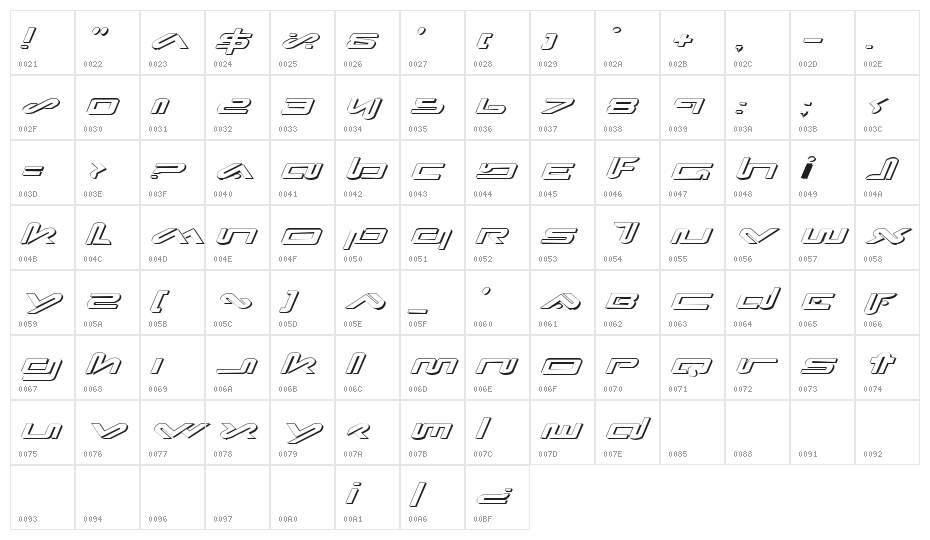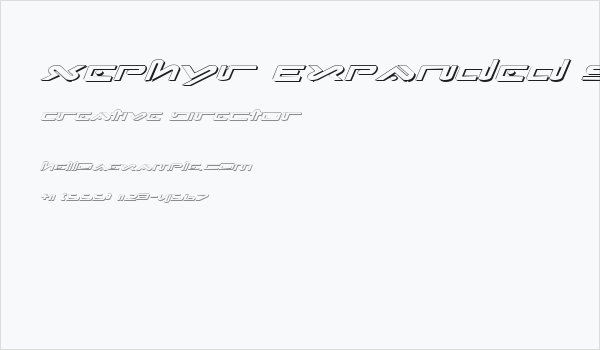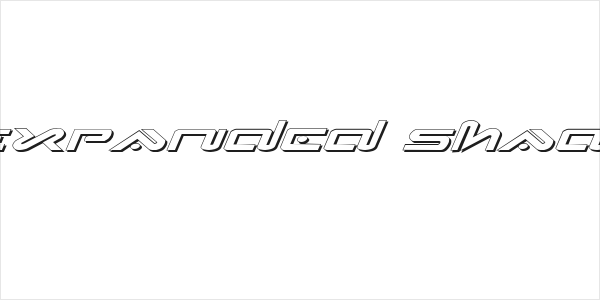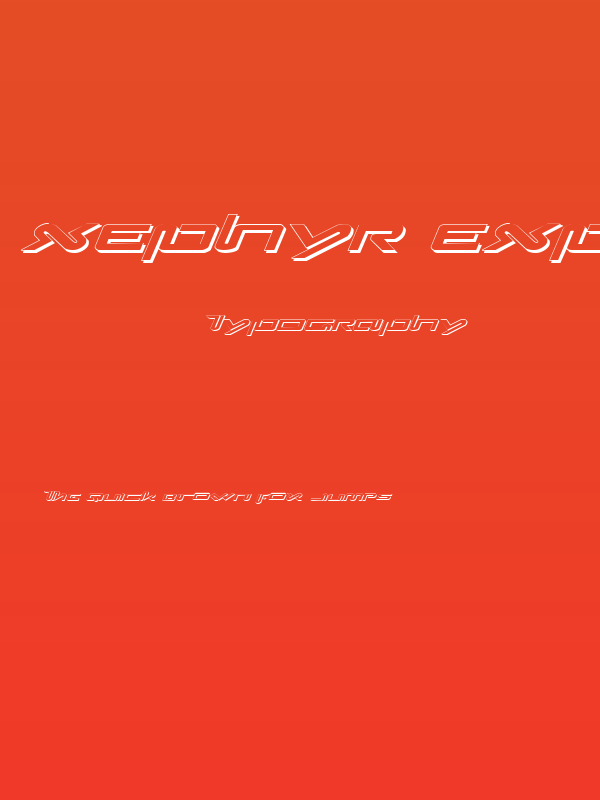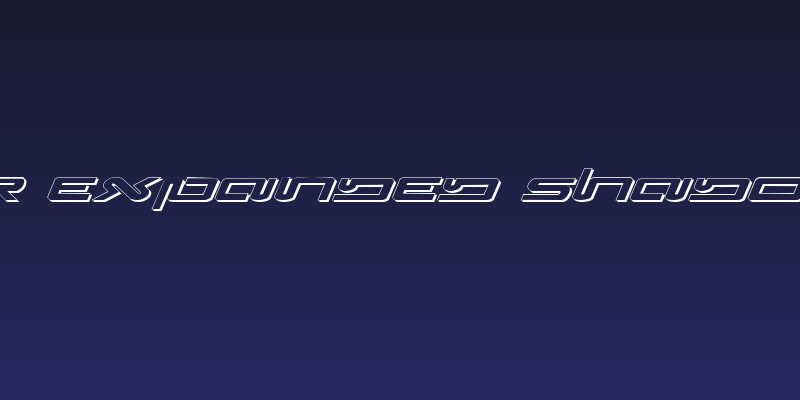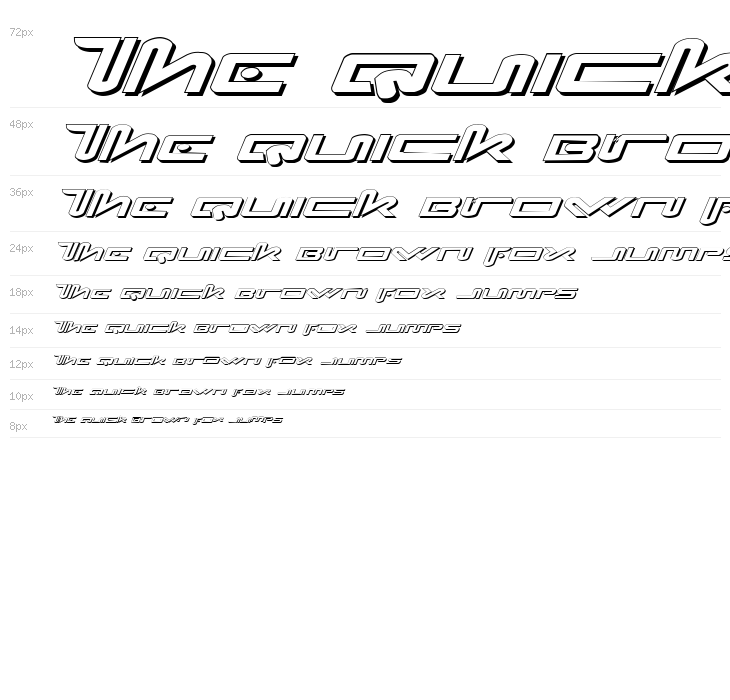
Xephyr Expanded Shadow Italic Font
Xephyr Expanded Shadow Italic Description
This font features a futuristic and dynamic design with an expanded and shadowed appearance. The italicized style adds a sense of motion and energy, making it ideal for projects that require a modern and edgy look. The characters are outlined with a bold stroke, providing a strong visual impact. The uppercase and lowercase letters maintain a consistent style, with angular and geometric shapes that enhance the font's contemporary feel. The numerals and special characters follow the same design principles, ensuring uniformity across all text elements.
| Proposed Projects | Ideal for sci-fi themed posters, video game titles, technology branding, and modern advertising campaigns. |